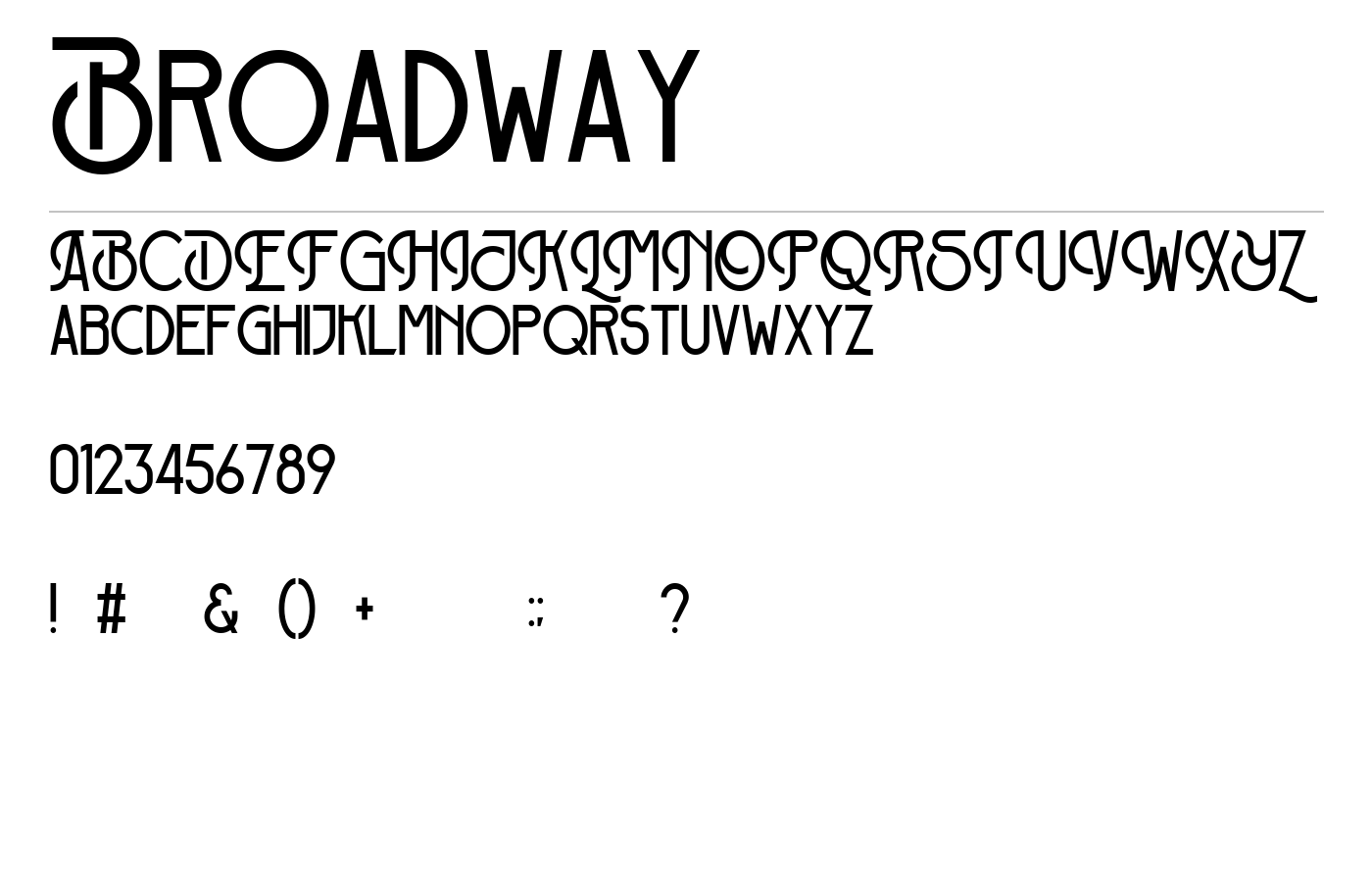
Broadway is a decorative sans serif font with a distinctly Art Deco style, characterized by its tall, narrow letterforms and elegant geometric curves. It has a bold and theatrical personality, making it perfect for eye-catching headlines, vintage-themed designs, and branding that aims to evoke glamour and sophistication. This font excels in display uses such as posters, logos, and fashion-related projects where a touch of classic 1920s flair is desired.
Broadway Font
About Broadway Font
| Font family | Broadway Font |